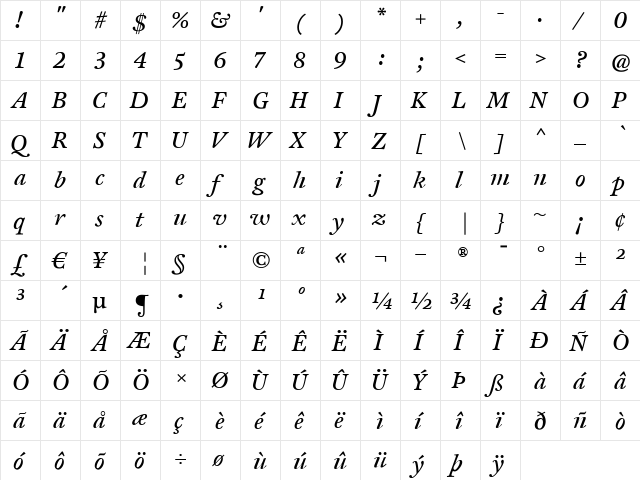
CliffordSix Italic
Design Context for CliffordSix Typeface
CliffordSix is a composed and adaptable typeface that performs quietly and consistently across a wide range of design contexts. The slanted form adds forward momentum and visual energy.
Pro Tip: Try CliffordSix for annotation and caption copy alongside an upright companion — the contrast in angle creates a dynamic but ordered typographic system.